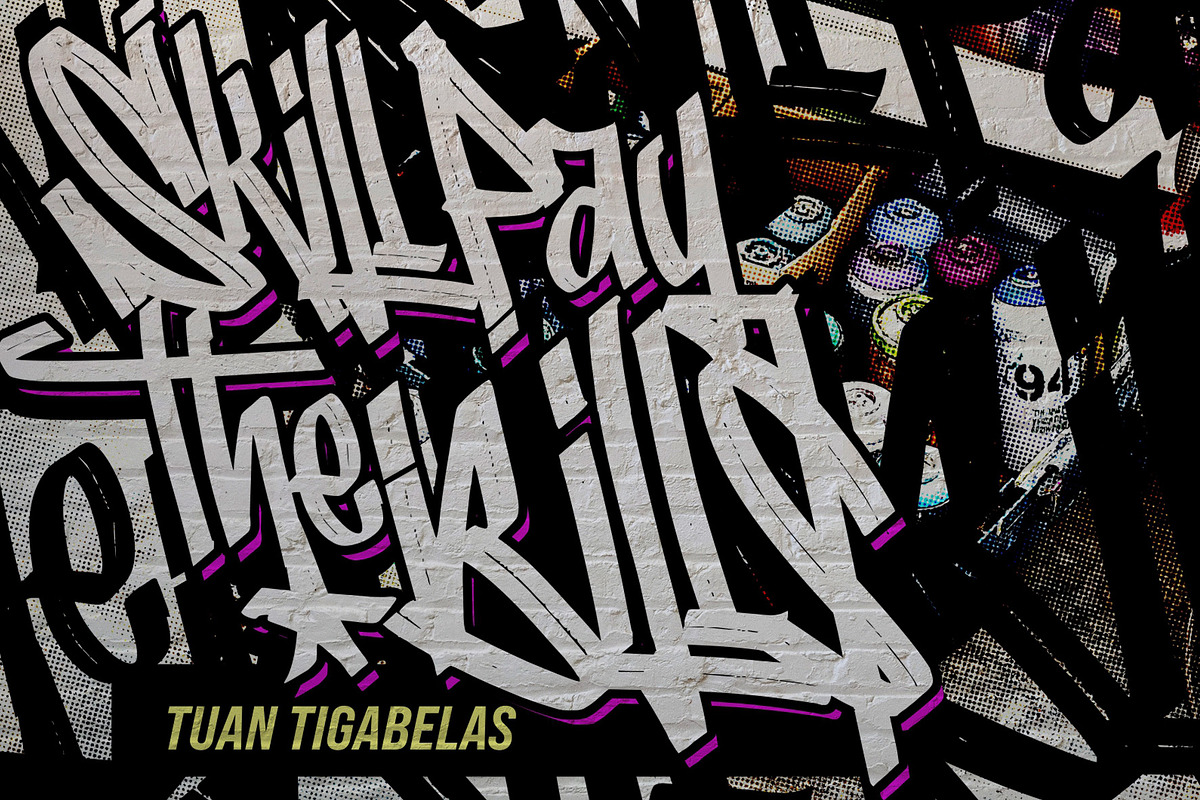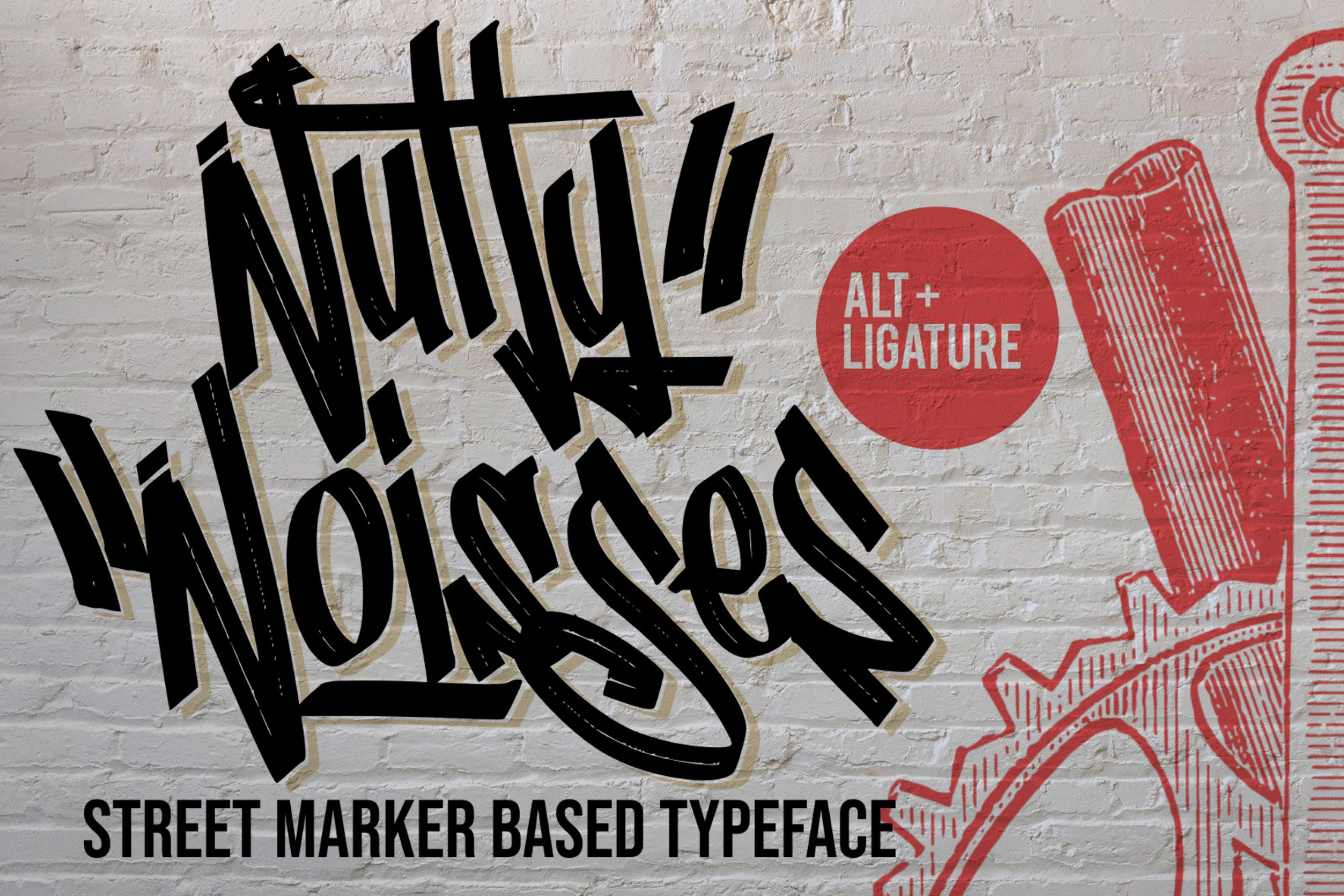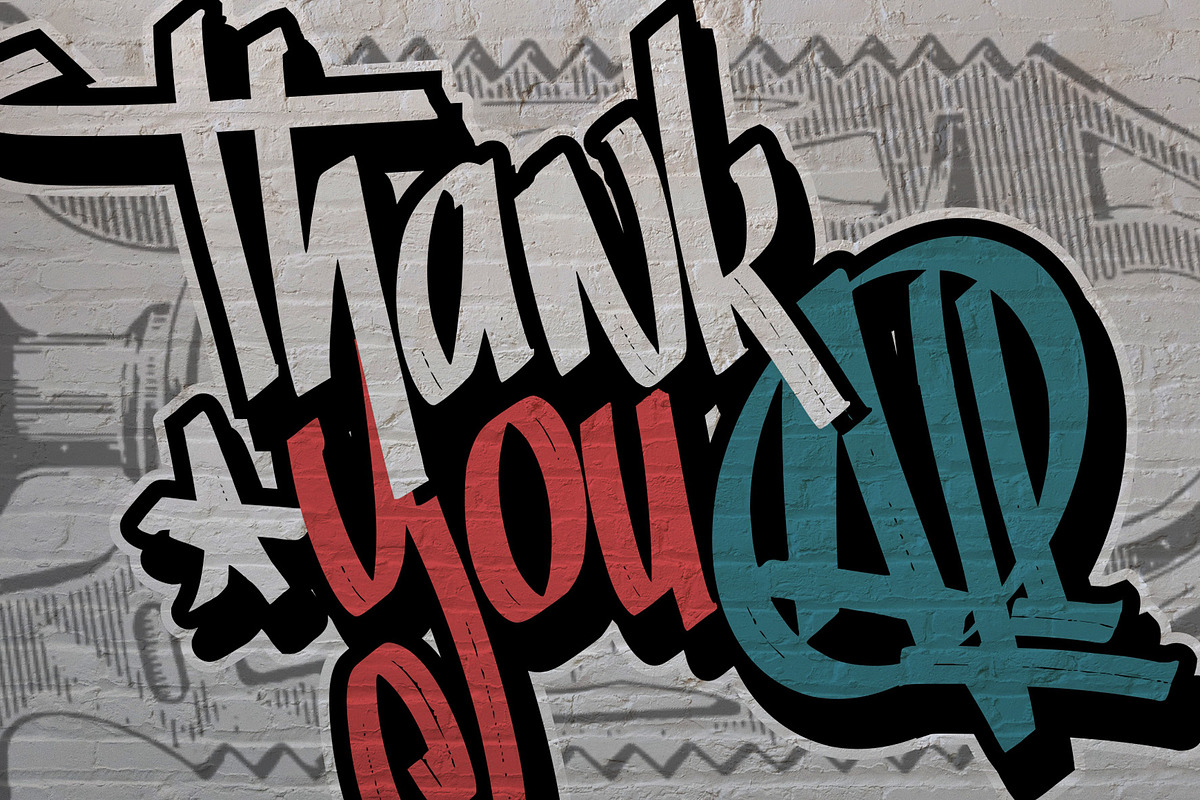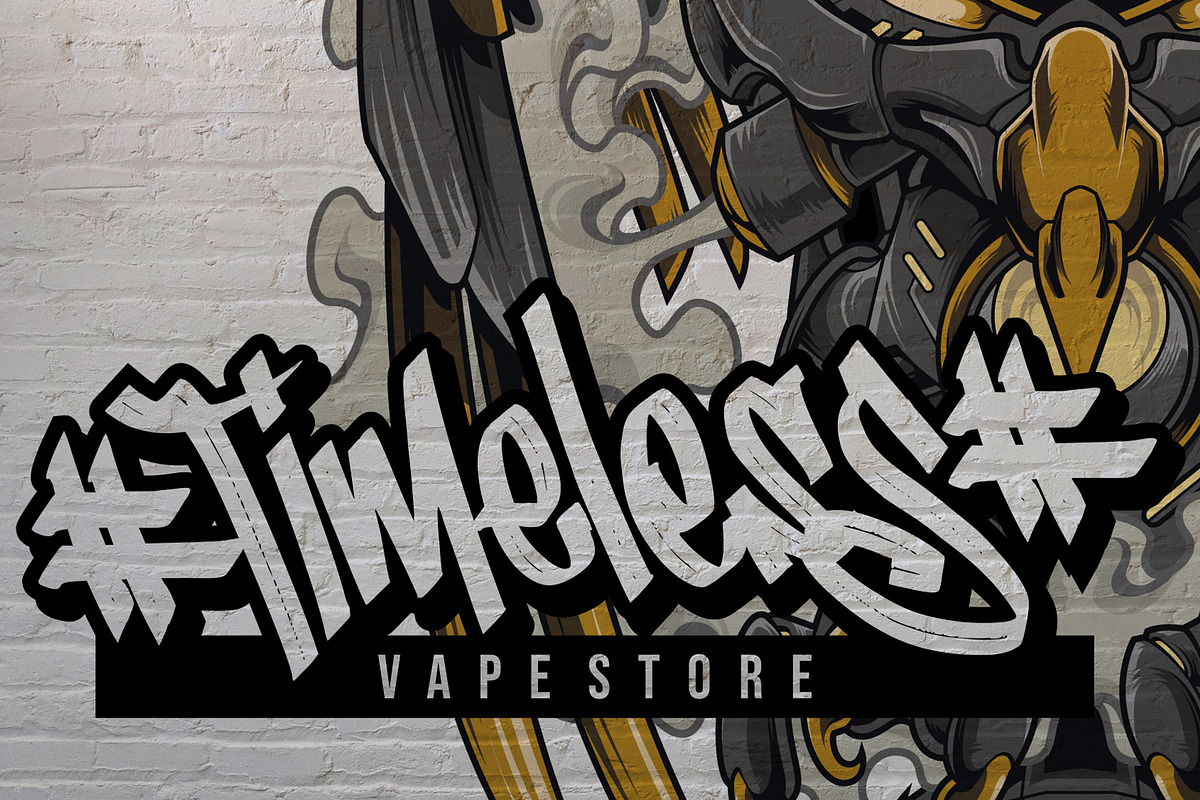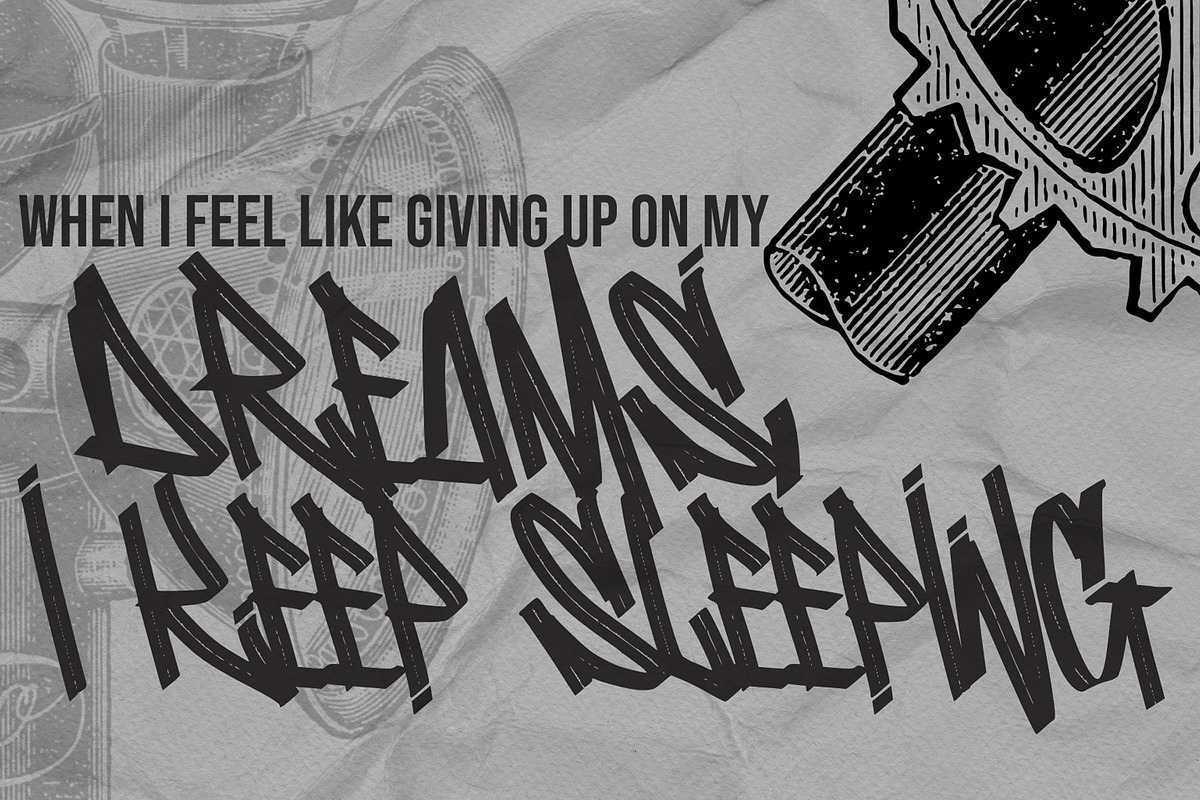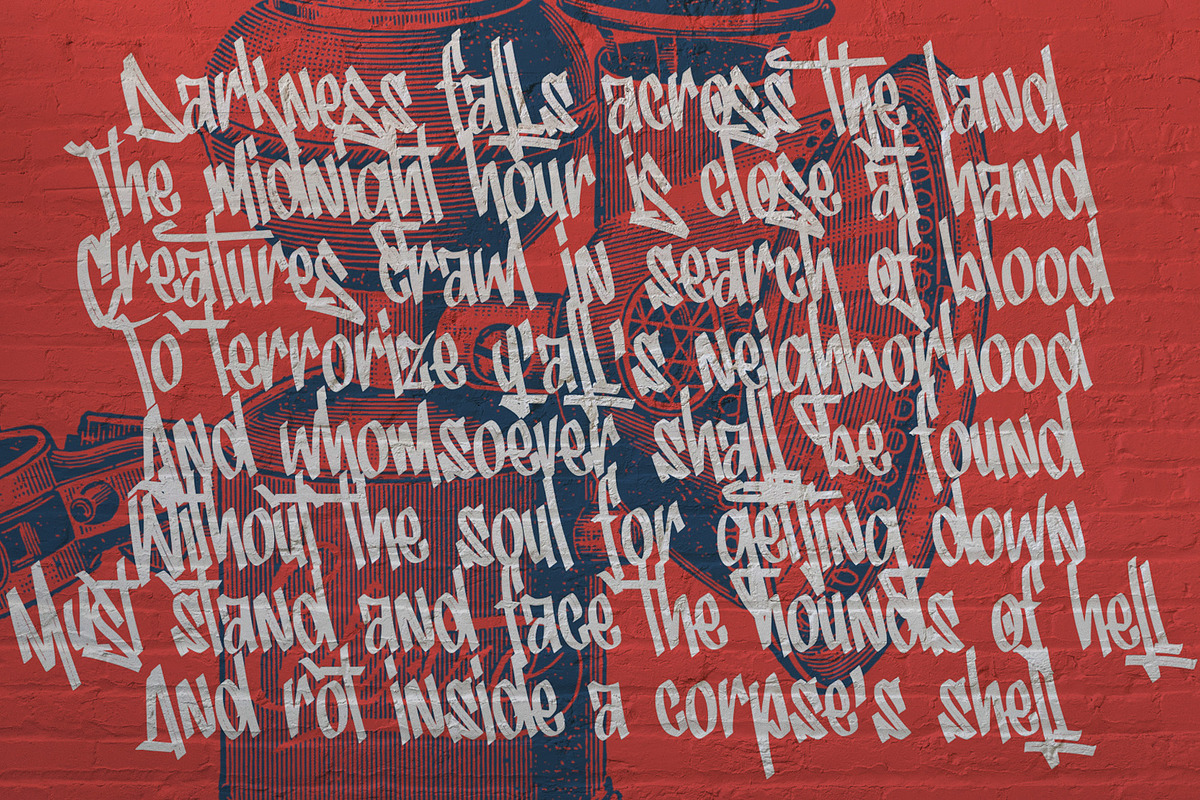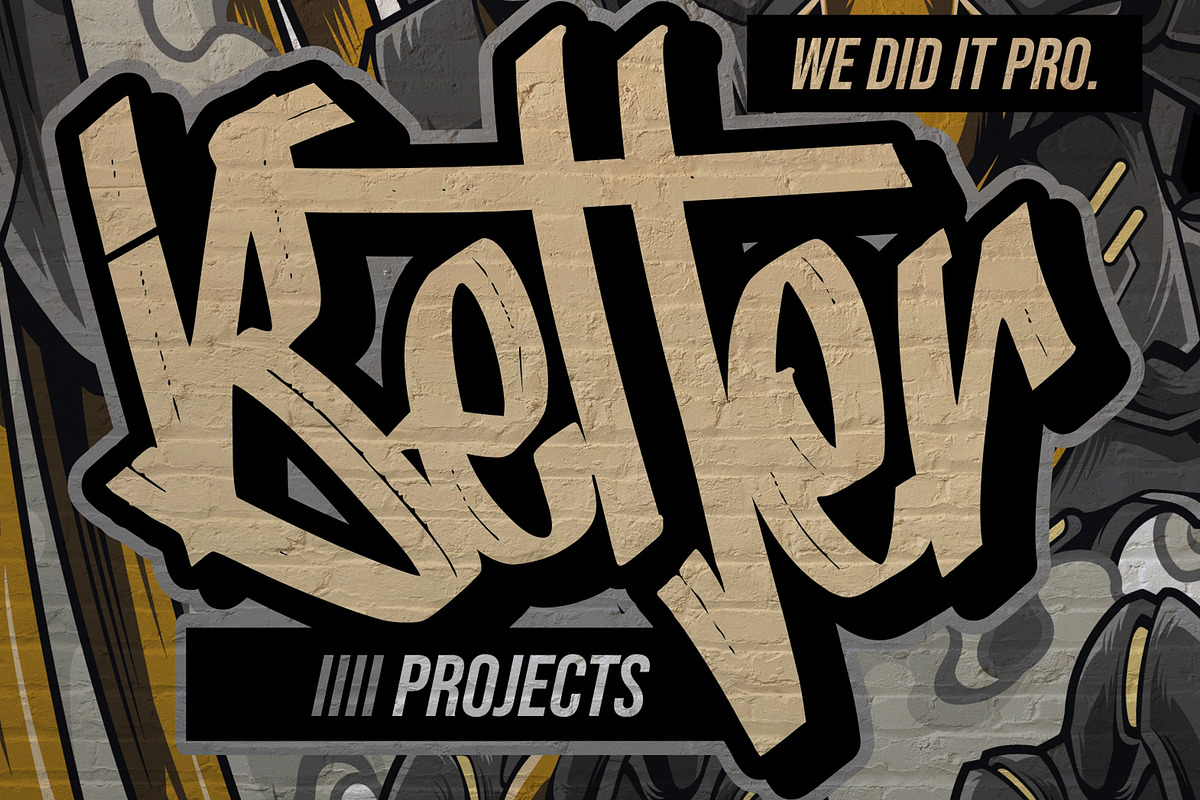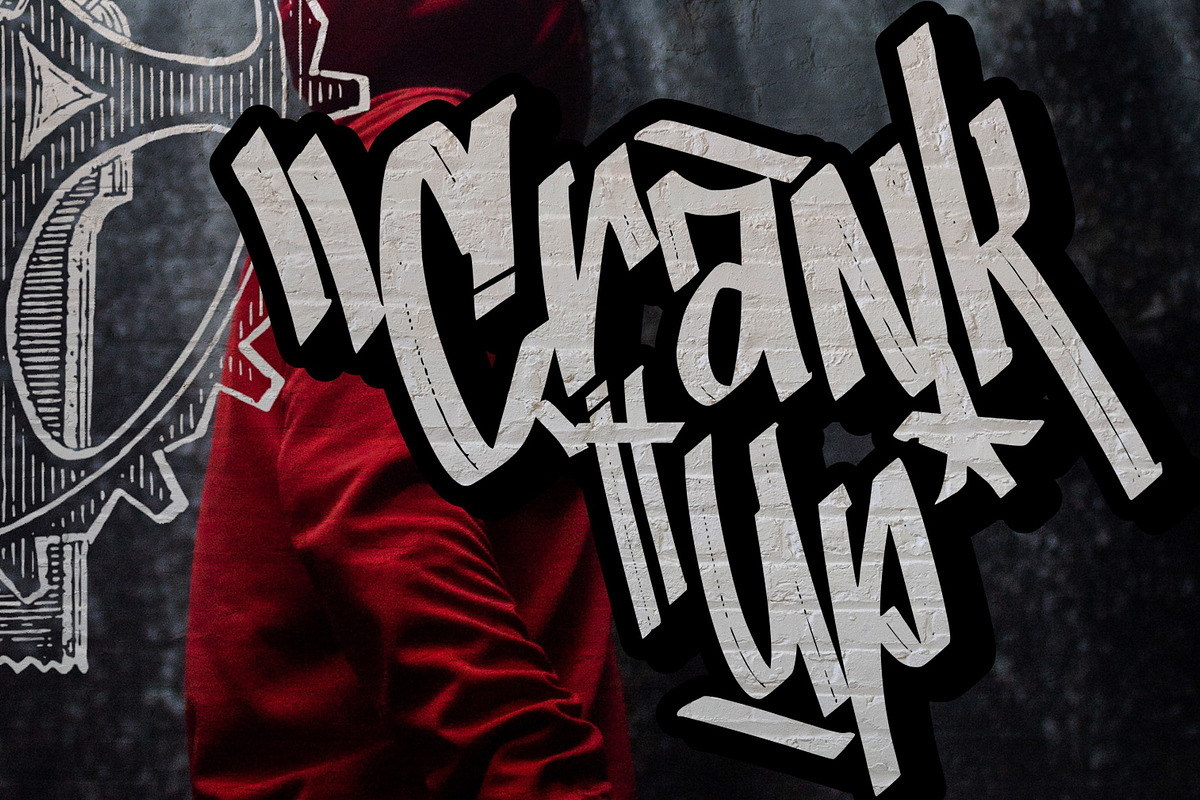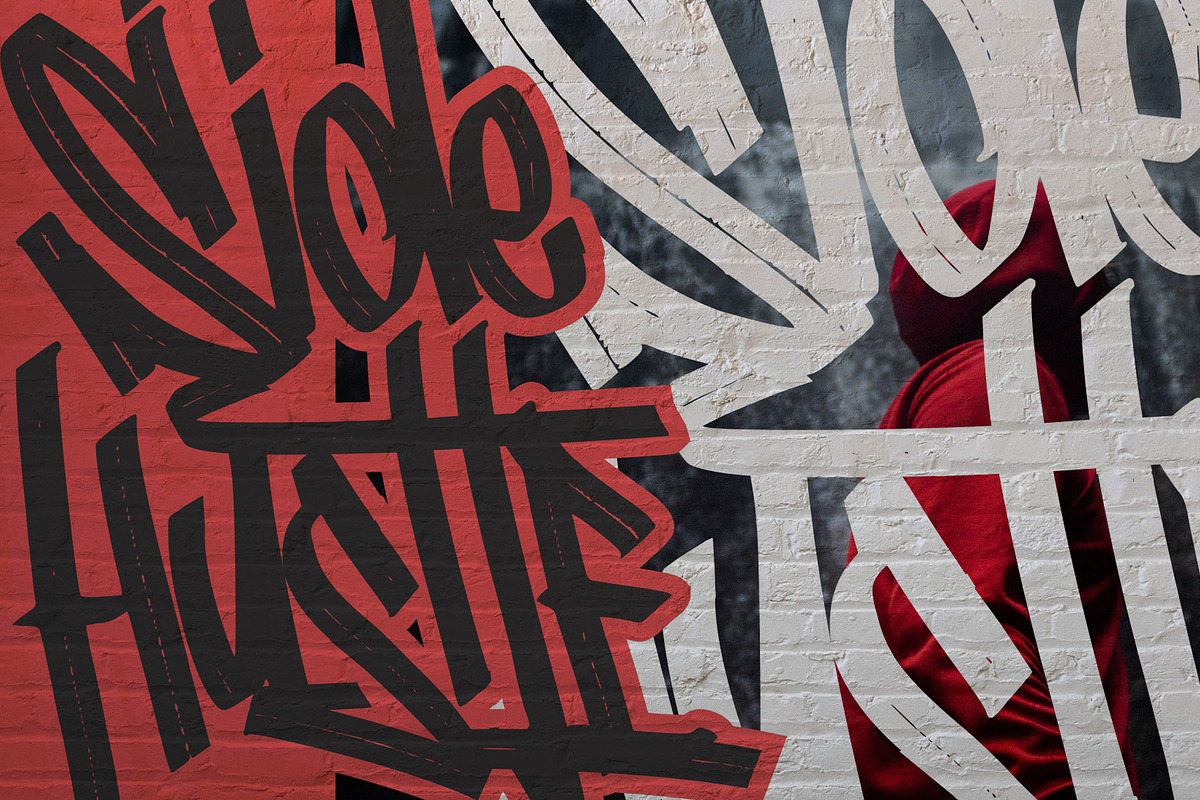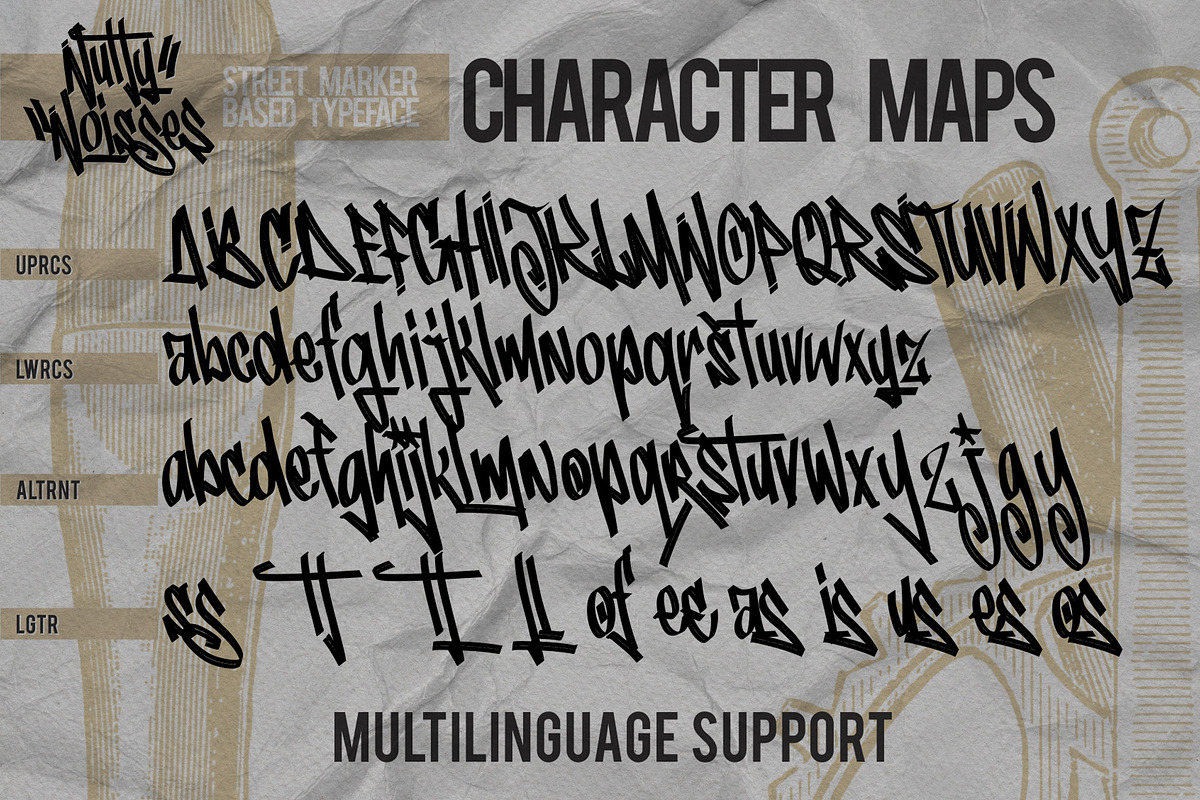
Nutty Noisses - Graffiti typeface
Introduce, New Font in town: Nutty Noisses
Inspired from old skool graffiti tagging, street art, we created this Typeface, drawn in Procreate app, then vectorized and crafted carefully.
Nutty Noisess Suitable for many design project, branding, packaging, logo, wall art, headline, template, banner, poster, and many more projects. These include all caps, punctuation, and numerals.